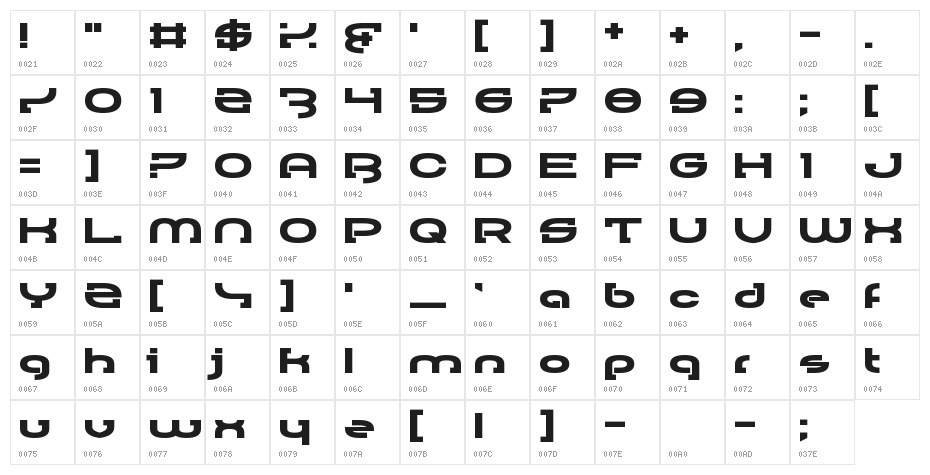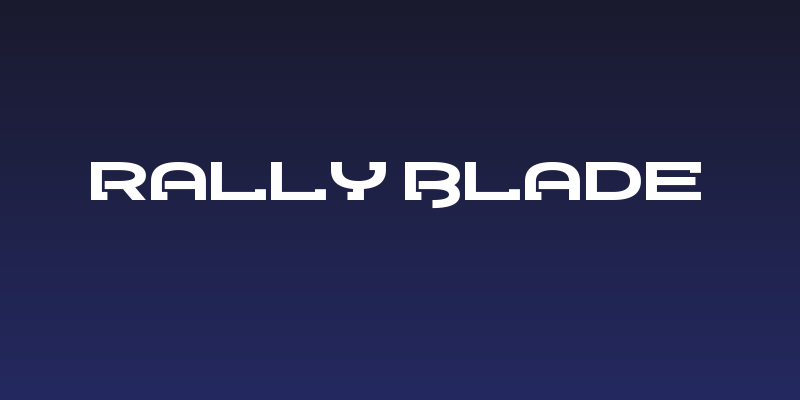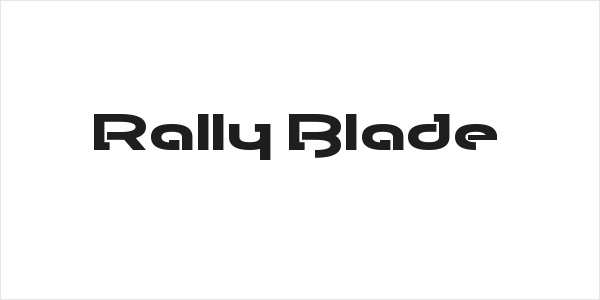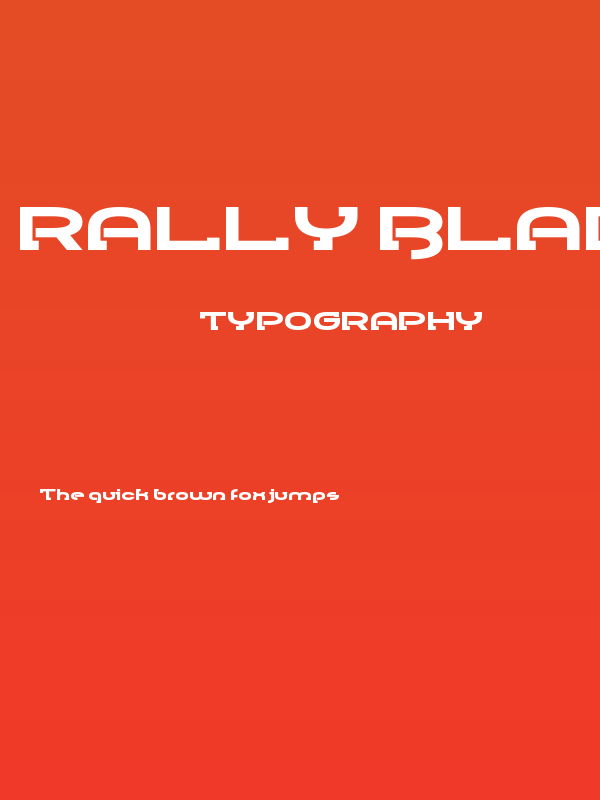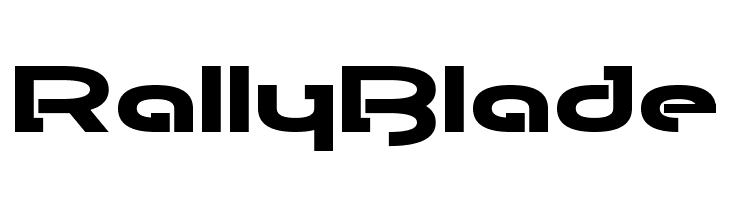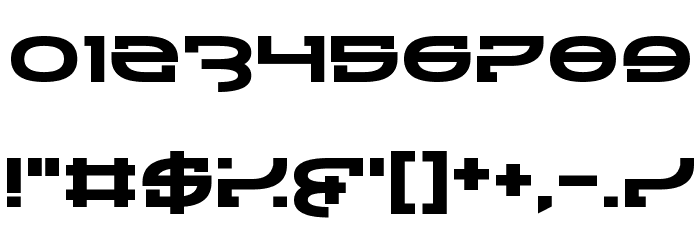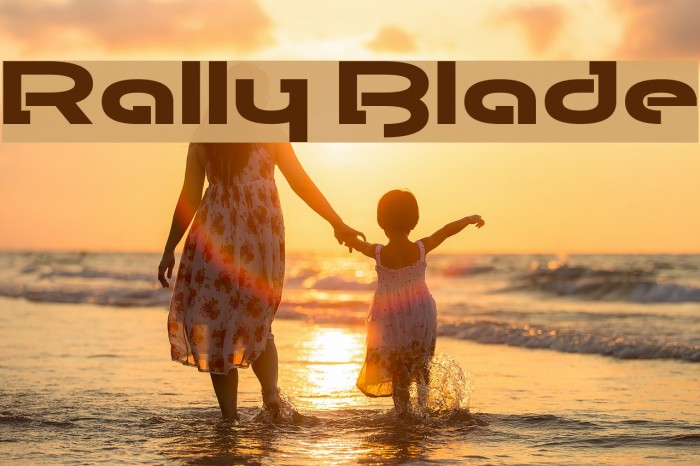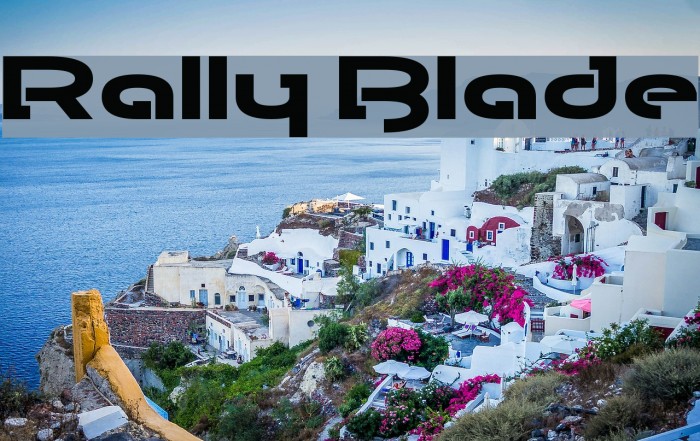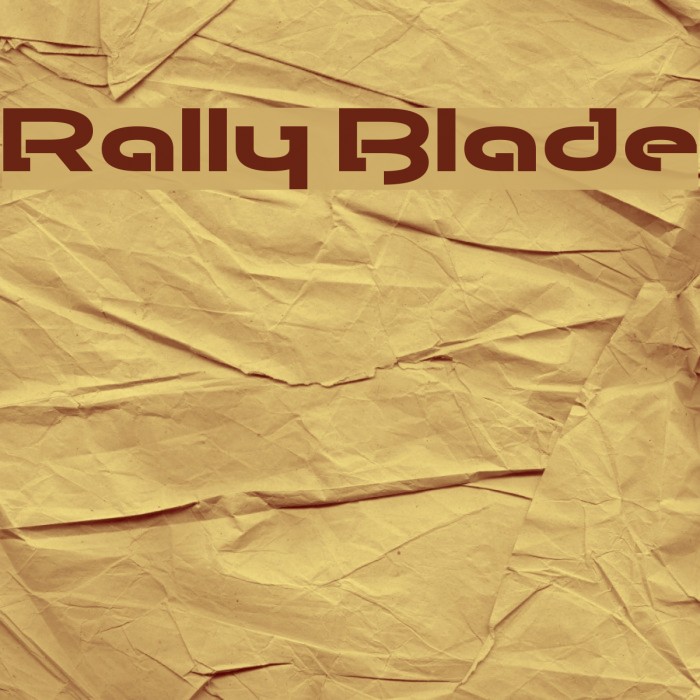
Rally Blade Font
Rally Blade Description
This font features a bold and futuristic design with a geometric structure. The characters are crafted with a unique blend of curves and sharp angles, creating a dynamic and modern appearance. The uppercase letters are particularly striking, with a consistent height and width that gives them a uniform look. The lowercase letters maintain the same boldness, with some characters having distinctive tails and loops that add to the font's personality. The numerals are equally bold, ensuring they stand out in any context. Special characters are designed to match the overall aesthetic, making this font versatile for various uses.
| Proposed Projects | Ideal for technology branding, sci-fi posters, video game titles, and modern advertising campaigns. |